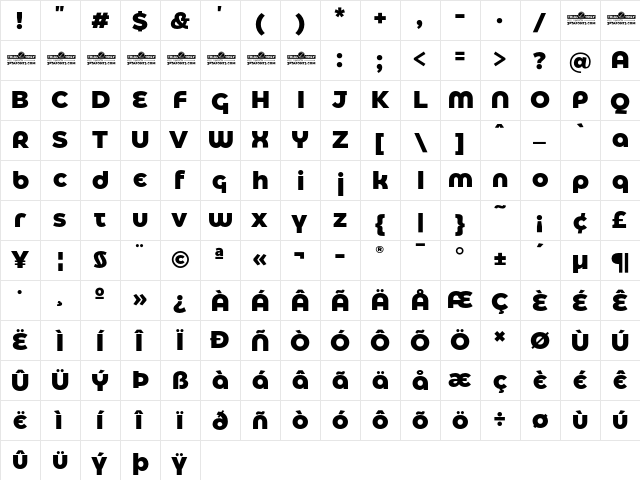
Eastman Alternate Trial Extrabold
| Foundry | Zetafonts |
| Designer | Francesco Canovaro |
Design Context for Eastman Alternate Trial Typeface
Eastman Alternate Trial takes a measured approach to typography — its balanced proportions and neutral character make it a reliable workhorse for both digital and print work. Its bold stroke weight gives it real presence on the page.